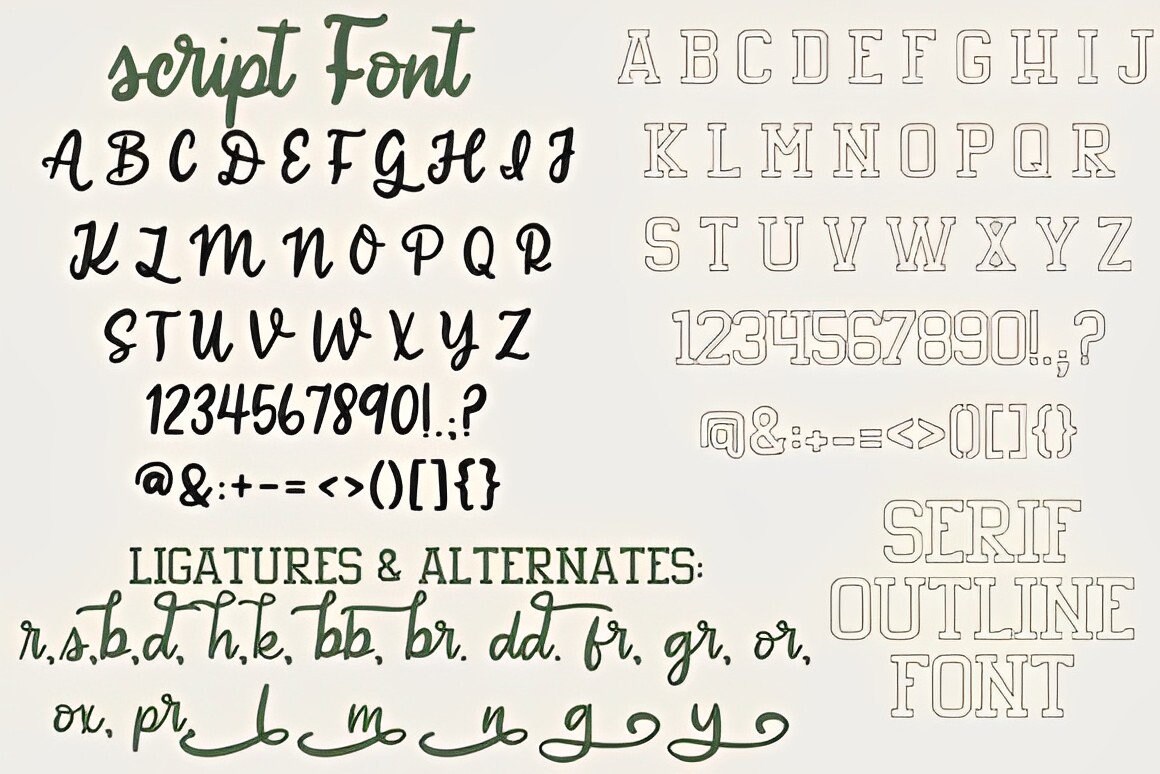
What Font Is Used For Letterman Jackets . Looking for letterman jacket fonts? 1 to 15 of 18 results. Varsity à by brøderbund software. Explore letterman fonts at myfonts. Click to find the best 2 free fonts in the letterman jacket style. You know, the kind of letters that make you think of big games, cheers, and. 9,304,895 downloads (1,933 yesterday) 500 comments. These fonts are found on the patches you place on your letterman jackets. In fancy > old school. Discover a world of captivating typography for your creative projects. Varsity fonts are typically characterized by their bold, slab serif designs that mimic the lettering used on team jerseys and. Unleash your design potential today! With a variety of styles and weights, you're sure to find the perfect typeface for any project. Every font is free to download! Discover the perfect look for your next project with our collection of free varsity fonts!
9,304,895 downloads (1,933 yesterday) 500 comments. Explore letterman fonts at myfonts. Varsity fonts are typically characterized by their bold, slab serif designs that mimic the lettering used on team jerseys and. Unleash your design potential today! Discover a world of captivating typography for your creative projects. These fonts are found on the patches you place on your letterman jackets. Every font is free to download! 1 to 15 of 18 results. In fancy > old school. Discover the perfect look for your next project with our collection of free varsity fonts!
What Font Is Used For Letterman Jackets Click to find the best 2 free fonts in the letterman jacket style. Explore letterman fonts at myfonts. 1 to 15 of 18 results. These fonts are found on the patches you place on your letterman jackets. Click to find the best 2 free fonts in the letterman jacket style. Discover the perfect look for your next project with our collection of free varsity fonts! Unleash your design potential today! In fancy > old school. Every font is free to download! With a variety of styles and weights, you're sure to find the perfect typeface for any project. You know, the kind of letters that make you think of big games, cheers, and. 9,304,895 downloads (1,933 yesterday) 500 comments. Discover a world of captivating typography for your creative projects. Varsity à by brøderbund software. Varsity fonts are typically characterized by their bold, slab serif designs that mimic the lettering used on team jerseys and. Looking for letterman jacket fonts?
High School Letterman Jacket Font What Font Is Used For Letterman Jackets Explore letterman fonts at myfonts. Click to find the best 2 free fonts in the letterman jacket style. 9,304,895 downloads (1,933 yesterday) 500 comments. With a variety of styles and weights, you're sure to find the perfect typeface for any project. Every font is free to download! In fancy > old school. Discover a world of captivating typography for your. What Font Is Used For Letterman Jackets.
Varsity Two Color Embroidery Fonts, Great for Letterman jackets and What Font Is Used For Letterman Jackets Click to find the best 2 free fonts in the letterman jacket style. With a variety of styles and weights, you're sure to find the perfect typeface for any project. Varsity fonts are typically characterized by their bold, slab serif designs that mimic the lettering used on team jerseys and. Explore letterman fonts at myfonts. In fancy > old school.. What Font Is Used For Letterman Jackets.
Personalized Initial Varsity Jacket, Letterman Jacket in Old English What Font Is Used For Letterman Jackets Discover the perfect look for your next project with our collection of free varsity fonts! These fonts are found on the patches you place on your letterman jackets. 1 to 15 of 18 results. Click to find the best 2 free fonts in the letterman jacket style. You know, the kind of letters that make you think of big games,. What Font Is Used For Letterman Jackets.
Letterman Jacket Font What Font Is Used For Letterman Jackets Explore letterman fonts at myfonts. Click to find the best 2 free fonts in the letterman jacket style. These fonts are found on the patches you place on your letterman jackets. Unleash your design potential today! You know, the kind of letters that make you think of big games, cheers, and. With a variety of styles and weights, you're sure. What Font Is Used For Letterman Jackets.
Personalized Kids Varsity Letterman Jacket + Chenille/Felt Letter Patch What Font Is Used For Letterman Jackets Click to find the best 2 free fonts in the letterman jacket style. Discover the perfect look for your next project with our collection of free varsity fonts! In fancy > old school. Unleash your design potential today! 1 to 15 of 18 results. Varsity à by brøderbund software. Varsity fonts are typically characterized by their bold, slab serif designs. What Font Is Used For Letterman Jackets.
Vintage Letterman Jacket letter C2 Etsy Letterman jacket, Vintage What Font Is Used For Letterman Jackets Explore letterman fonts at myfonts. Every font is free to download! 9,304,895 downloads (1,933 yesterday) 500 comments. These fonts are found on the patches you place on your letterman jackets. You know, the kind of letters that make you think of big games, cheers, and. Looking for letterman jacket fonts? Click to find the best 2 free fonts in the. What Font Is Used For Letterman Jackets.
Custom Letterman Jackets Design Yours Today What Font Is Used For Letterman Jackets Discover a world of captivating typography for your creative projects. 9,304,895 downloads (1,933 yesterday) 500 comments. Discover the perfect look for your next project with our collection of free varsity fonts! Explore letterman fonts at myfonts. Varsity fonts are typically characterized by their bold, slab serif designs that mimic the lettering used on team jerseys and. Click to find the. What Font Is Used For Letterman Jackets.
Personalised Letterman Jacket with Customised Text Choice Etsy What Font Is Used For Letterman Jackets You know, the kind of letters that make you think of big games, cheers, and. Varsity à by brøderbund software. 1 to 15 of 18 results. Discover a world of captivating typography for your creative projects. Varsity fonts are typically characterized by their bold, slab serif designs that mimic the lettering used on team jerseys and. Discover the perfect look. What Font Is Used For Letterman Jackets.